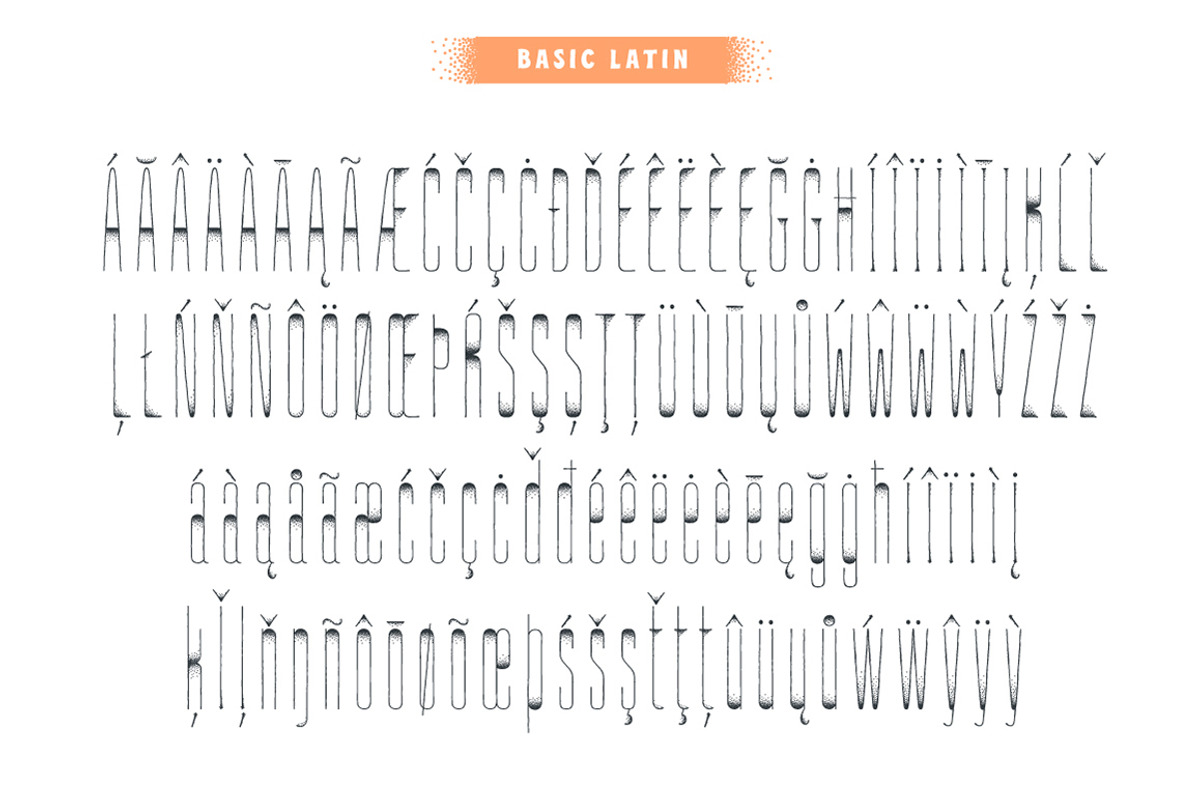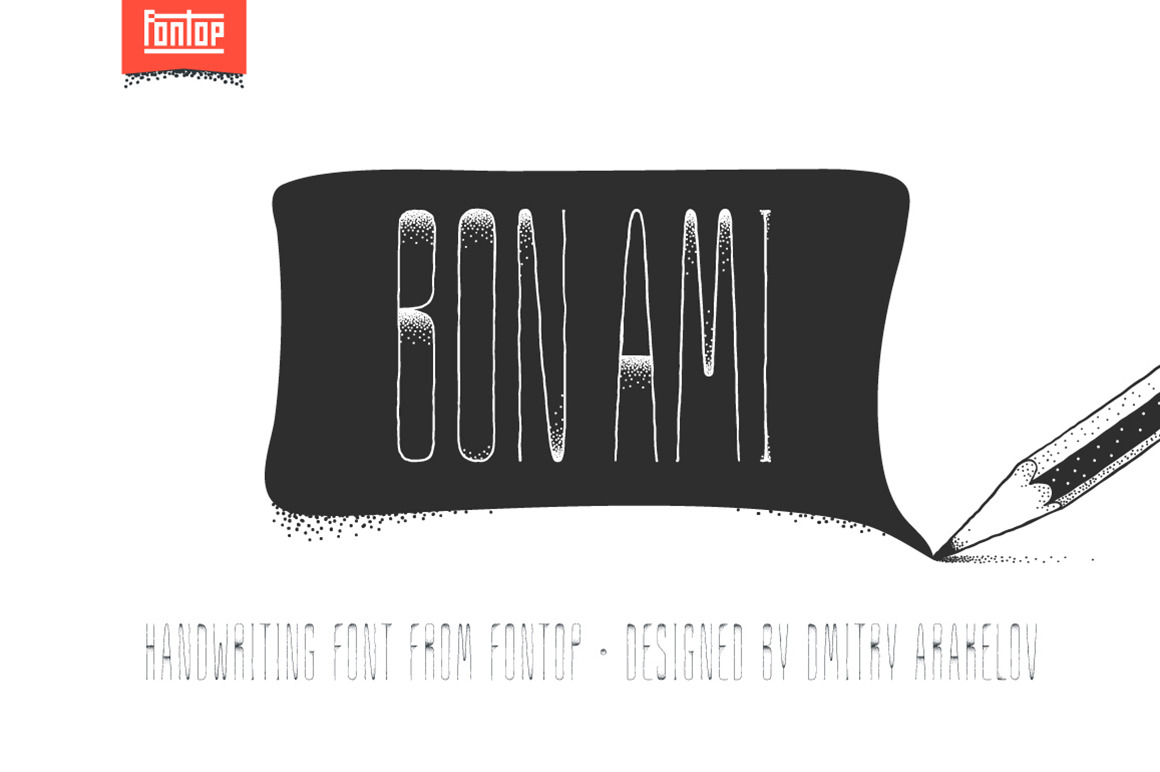
Bon Ami cute font
Bon Ami is a hand lettered condensed font perfect to add a fun feel and individual look to everything you create including cards & invites, logos, souvenirs, stationary, and so on. It also works perfectly when pairing with other fonts, f.e. with my Paramaribo font (as in the image with the cupcake).
The font consists of Latin multilingual support as well as uppercase letters, lowercase letters, numbers and basic punctuation.